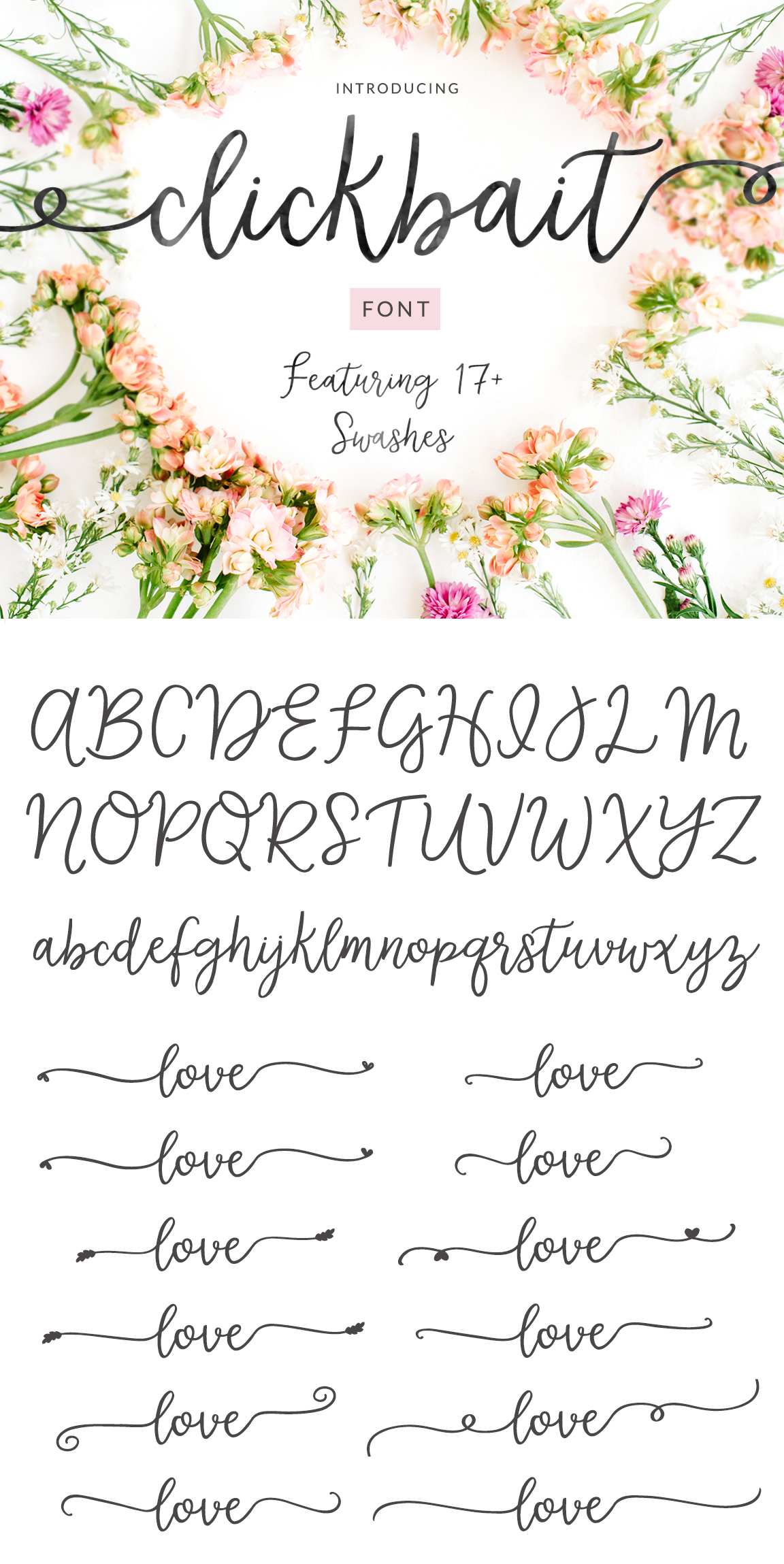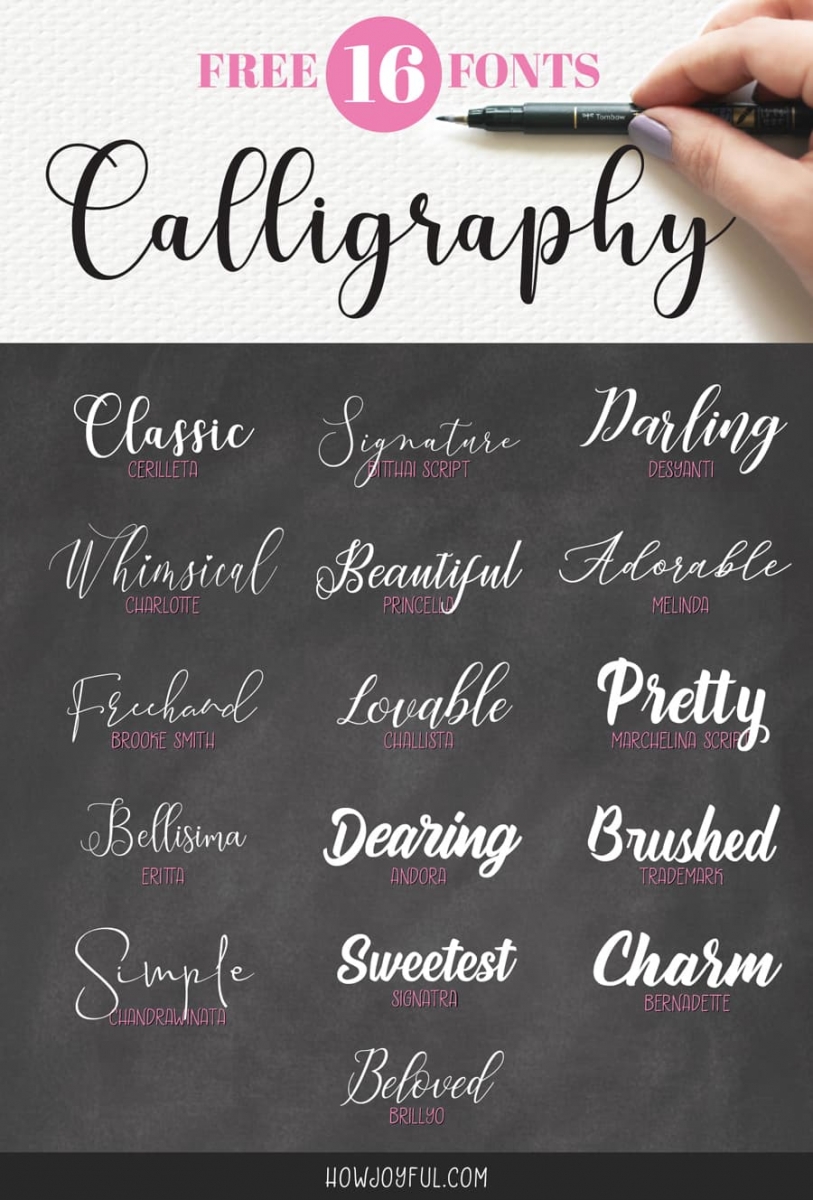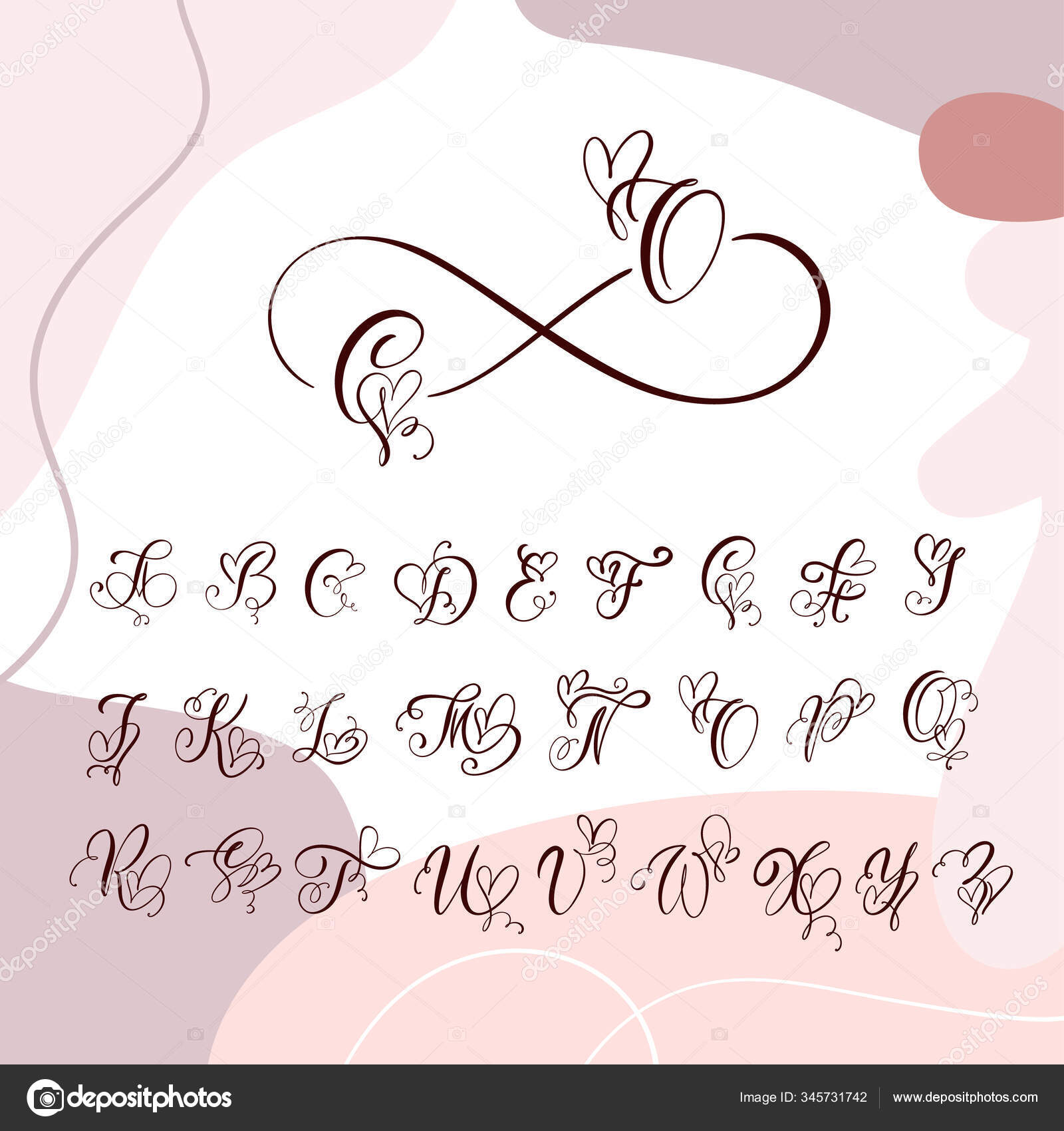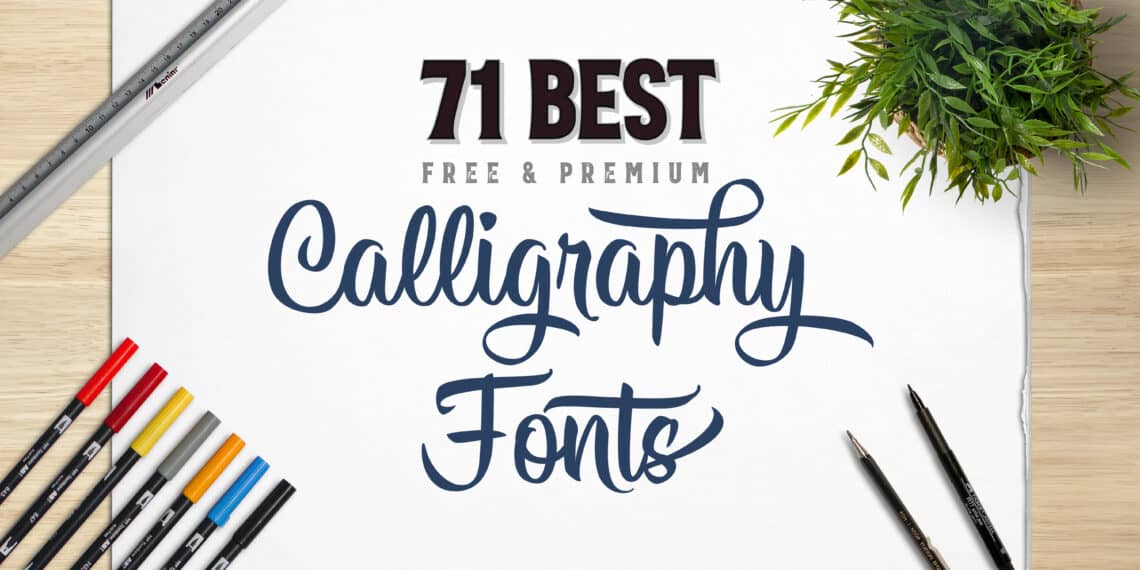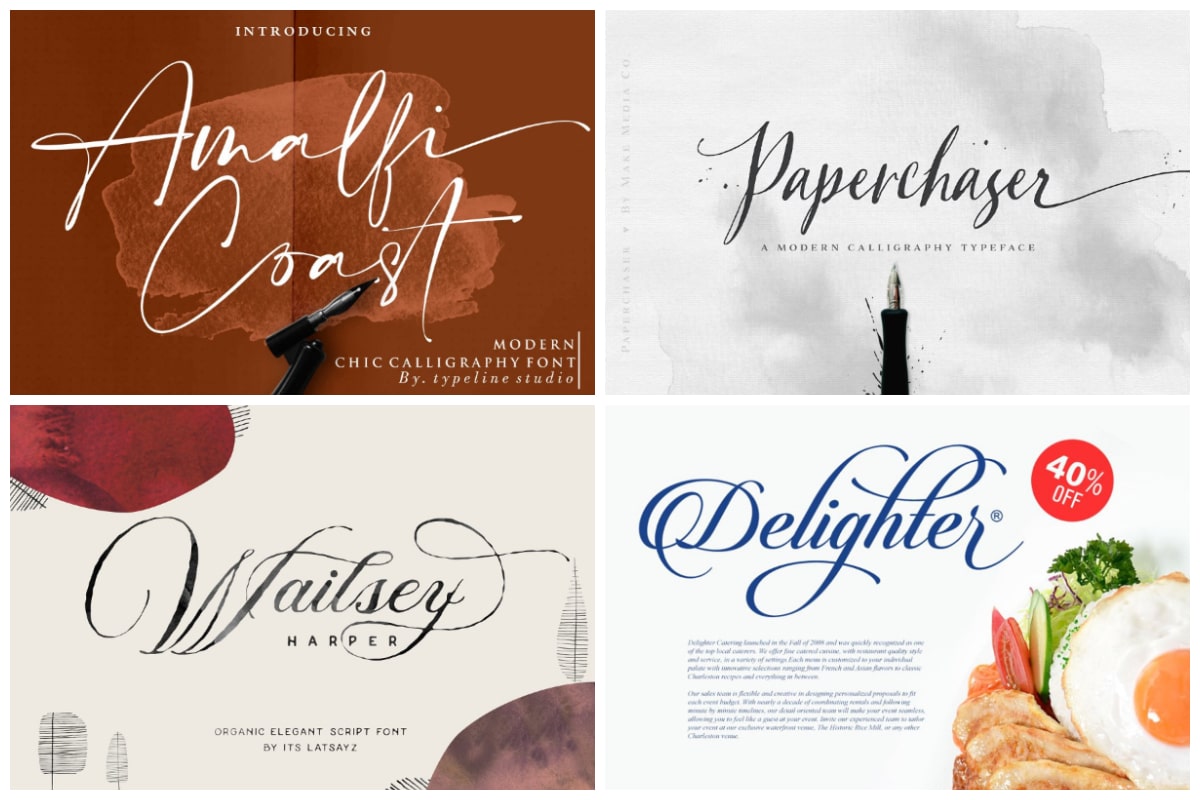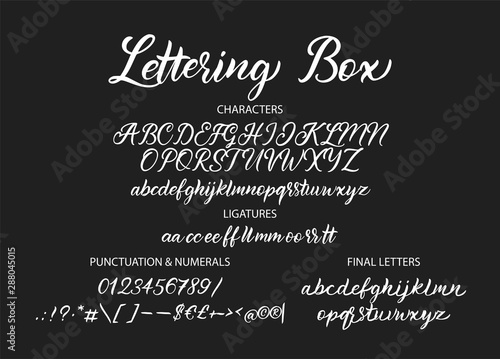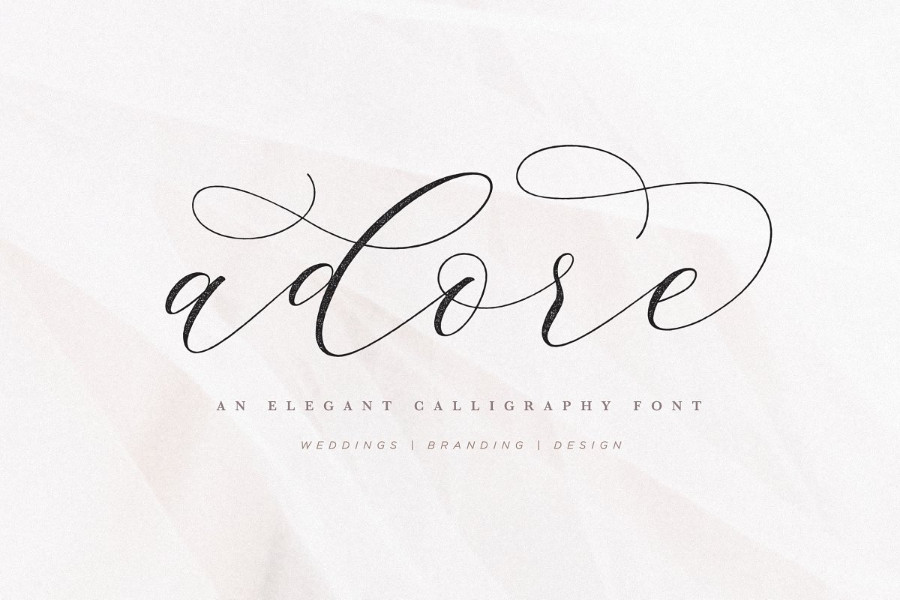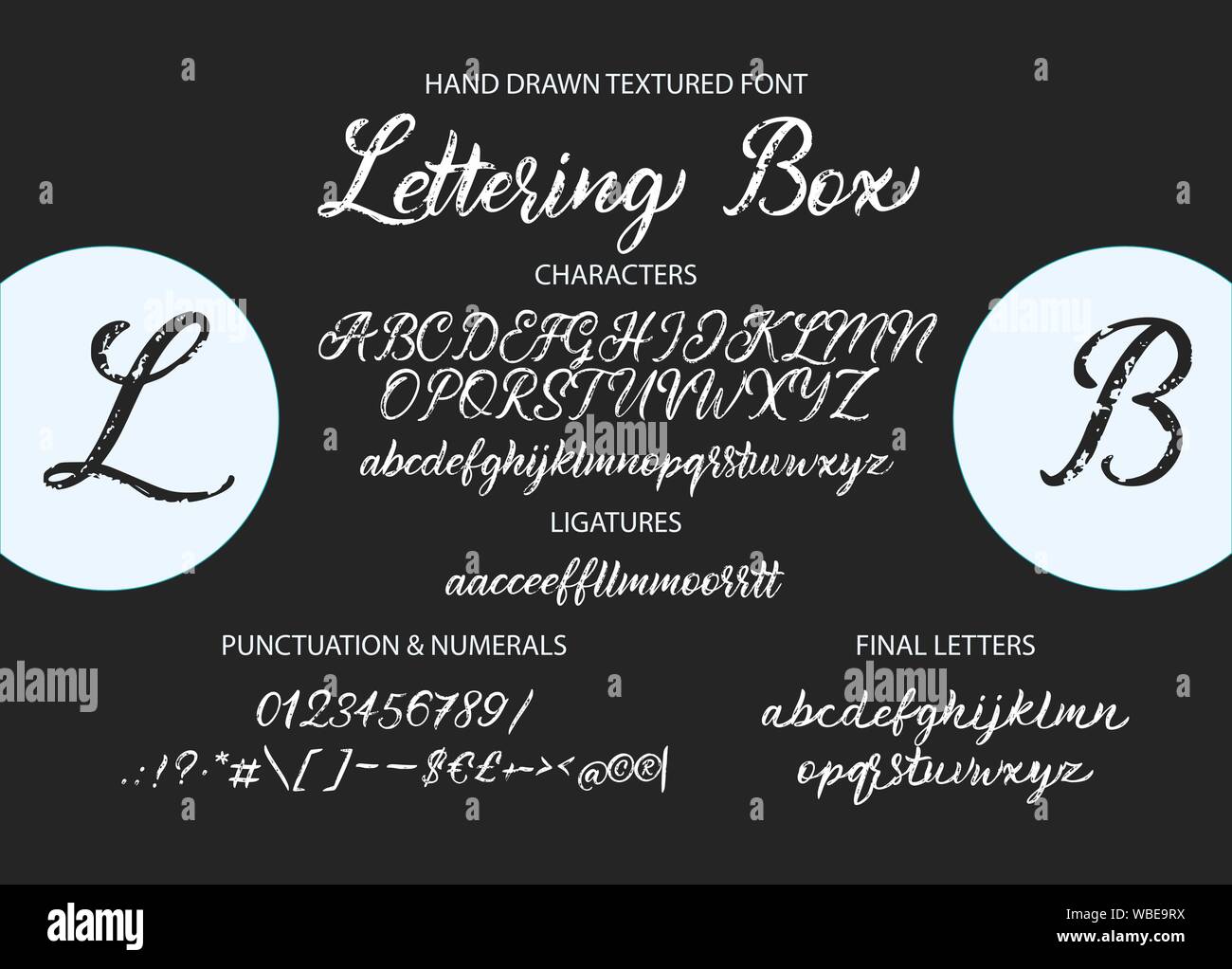
Calligraphy cute number fonts. LHF Encore by John Davis. This is not a complete collection many other fonts on FontSpace have fancy numbers in the number digits. 19 bonus alternates are included for maximum control.
See more ideas about lettering fonts lettering alphabet lettering. Download Calligraphy Fonts for free in the highest quality available. Langoustine by Octotype Category.
What began as one mans quest to bring order into his life has now taken the world by storm. Burgues Script created by Alejandro Paul is a typical font family of calligraphy style. Mar 5 2019 - Explore Christopher Hills board calligraphy numbers on Pinterest.
From washi tapes Moleskins to felt tip pens it seems that theres a group of people out. Latest fonts Popular this month Popular all time Alphabetically. It contains uppercase lowercase and number.
These letters may be roman numerals or old-style figures with varying heights. Click to find the best 357 free fonts in the Cute Calligraphy style. Looking for Cute Calligraphy fonts.
Lily of the Valley_Personal_Use. Number fonts is a style that is dedicated to just the number letters. According to the designer the font is an ode to the late 19 th century American calligrapher Louis Madarasz known as the most skillful penman the world has ever known.
As this page shows calligraphy looks expressive and beautiful it is widely used in wedding invitations and event invitations and calligraphy also has a large number of enthusiasts. Lily of the Valley_Personal_Use by dcoxy - Greg Medina Category. Number ink brush number calligraphy alphabet capital script numbers paint brush numbers calligraphy wedding font brush numbers font curl wedding handwritten serif fonts vector.
The height of calligraphy was reached in the middle age where monks developed the narrow writing style called gothic allowing more words to fit on a single line as paper was expensive at the time. Free Anayu Calligraphy Font is an elegant whimsical and uniquely shaped lettered handwritten font that look simple but cute font that suits to type on any design. Latest fonts Popular this month Popular all time Alphabetically.
It is the design and execution of lettering with a broad tip instrument brush or other writing instruments. We offer fast servers so you can Download Calligraphy Fonts and get to work quickly. Tastysushi by Octotype Category.
Calligraphy fonts are widely used in wedding event invitations original logo design religious art films TV etc. Anayu font looks astonishing on love letters greeting cards logos business cards wedding invitations thank you cards quotes apparel branding magazine advertising product. LHF Encore lends itself to designs requiring a formal or professional appearance.
By now youve probably glimpsed the aesthetic realm of bullet journals. Its going to work pretty much anywhere online - works almost everywhere - its just textText with special computer letters and symbols kind of like emoji. With expertly balanced letters Encore is perfect for creating quick logos.
Lovers of beautiful calligraphy and type will especially appreciate this elegant font family. Font generator will convert your text letters using calligraphy fontClick a copy buttonPaste it as plain text. 117314 calligraphy numbers stock photos vectors and illustrations are available royalty-free.